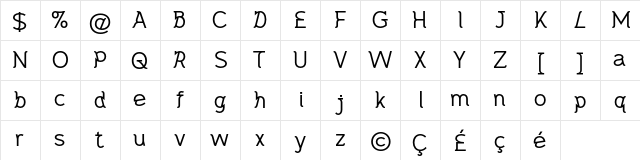
Metaphysica Demo Demo
| Designer | Ay͡ Atalay |
Design Context for Metaphysica Demo Typeface
Metaphysica Demo offers clean, dependable letterforms without strong stylistic allegiance, making it a practical choice for designers who need flexibility.